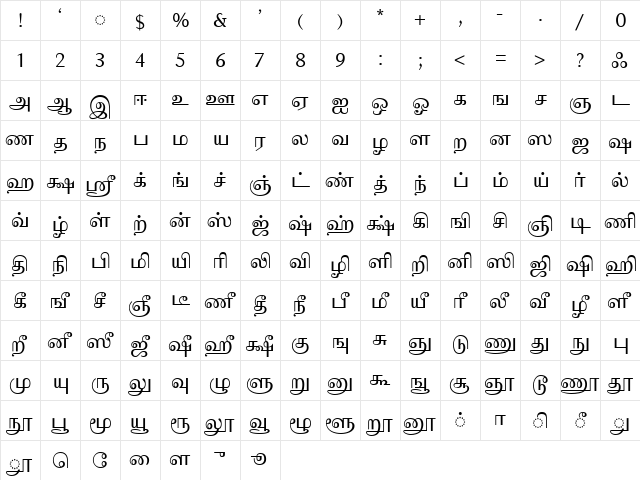
IdsTamil_TG_2_ Normal
Design Context for IdsTamil_TG_2_ Typeface
IdsTamil_TG_2_ takes a measured approach to typography — its balanced proportions and neutral character make it a reliable workhorse for both digital and print work.